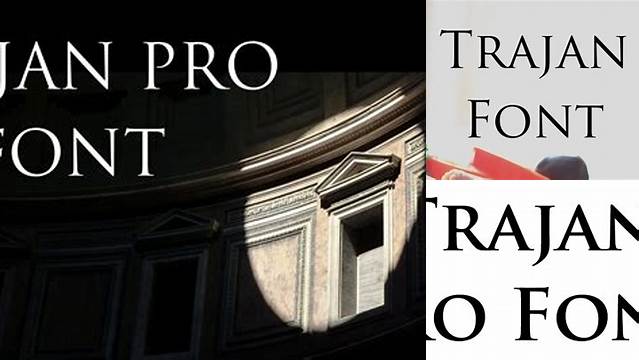
Trajan Pro Font: Free Alternatives & Creative Uses
Hey guys! Ever wondered about that super classy, Roman-inspired font you see everywhere, especially in movie posters? You're probably thinking of Trajan Pro, a font that just screams elegance and history. But, let's be real, not everyone can or wants to shell out the cash for it. So, today, we're diving deep into the world of Trajan Pro, exploring what makes it so special, and, most importantly, uncovering some fantastic free alternatives you can use in your projects. Plus, we’ll chat about creative ways to use these fonts to give your designs that extra oomph.
What Makes Trajan Pro So Special?
Before we jump into alternatives, let's quickly understand why Trajan Pro is so beloved. Designed by Carol Twombly in 1989 for Adobe, Trajan Pro is an all-caps serif font inspired by the lettering on the base of Trajan's Column in Rome. It’s this historical connection that gives it a sense of gravitas and timelessness. The clean lines, balanced proportions, and the overall classical feel make it perfect for designs that need to convey authority, sophistication, and a touch of history. Think movie posters, book covers, and high-end branding – you've likely seen it all over the place!
Why Look for Trajan Pro Alternatives?
Okay, so Trajan Pro is awesome, but here’s the deal: it’s a commercial font, meaning you have to pay to use it. And depending on your needs, that cost might not be justifiable. That's where free alternatives come in! Plus, exploring different fonts can actually spark creativity and help you discover new styles that you might not have considered otherwise. So, let's get to it!
Exploring Free Trajan Pro Font Alternatives
H2: Similar Fonts to Trajan Pro
Finding fonts that capture the essence of Trajan Pro without costing a dime is totally doable. The key is to look for fonts with similar characteristics: all-caps design, classical Roman letterforms, and a strong serif presence. Let's explore some awesome options.
H2: Best Free Fonts Like Trajan Pro
There are a bunch of fantastic free fonts that give you that Trajan Pro vibe. We're talking about fonts that are perfect for headlines, logos, and any design where you want to make a statement. These fonts often have a similar weight and letterform structure, making them excellent substitutes.
H2: Free Fonts Similar to Trajan Pro
So, what are the best free fonts that echo the elegance of Trajan Pro? Think about fonts that carry that same historical weight and sophistication. We're looking for options that will give your designs a classic and timeless feel, just like Trajan Pro does.
H2: Alternative Fonts for Trajan Pro
Sometimes, you don't need an exact copy; you just need a font that serves the same purpose. Let's explore some alternative fonts that capture the spirit of Trajan Pro, even if they have their own unique flair.
H2: Free Trajan Pro Style Fonts
When you're aiming for that Trajan Pro style, you're after a certain look and feel. These free fonts nail that aesthetic, giving you options that are both stylish and budget-friendly. Let's see what's out there.
H2: Free Fonts Inspired by Trajan Pro
Inspiration can come in many forms, and these free fonts draw from the same classical roots as Trajan Pro. They might not be perfect clones, but they definitely evoke a similar vibe. Think of them as Trajan Pro's cool cousins.
H3: Free Alternatives to Trajan Pro Font Family
Looking for a whole family of fonts that match the Trajan Pro aesthetic? Some free options come with multiple weights and styles, giving you versatility for your projects. This is super useful for maintaining consistency across your designs.
H3: Free Trajan Pro Font for Commercial Use
Need a Trajan Pro-esque font for a commercial project? Make sure you check the license! Some free fonts are perfect for business use, letting you create stunning designs without worrying about copyright issues.
H3: Free Trajan Pro Font Download
Ready to grab some free fonts? We'll point you to resources where you can download these alternatives and start using them in your projects right away. It's all about easy access to awesome typography!
H3: Trajan Pro Free Font Alternatives Online
No need to download anything if you don't want to! There are tons of online tools and resources that let you use these Trajan Pro alternatives directly in your browser. Talk about convenience!
H3: Trajan Pro Similar Fonts Free
We're on the hunt for fonts that are seriously similar to Trajan Pro, but without the price tag. Let's compare some options and see which ones come closest to capturing that classic look.
H3: Trajan Pro Typeface Free Alternatives
The typeface is more than just the letters themselves; it's the whole design system. These free alternatives capture the essence of the Trajan Pro typeface, giving you a cohesive and polished look.
H3: Free Fonts that Look Like Trajan Pro
Sometimes, you just need a font that looks the part. These free options are visual doppelgangers for Trajan Pro, making them perfect for projects where aesthetics are key.
H3: Finding Websites Offering Free Fonts Similar to Trajan Pro
Wrapping Up: Your Trajan Pro Alternatives Await!